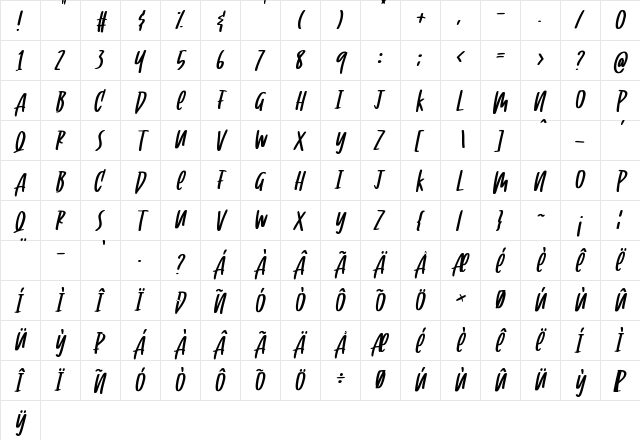
Cooless italic Regular
Design Context for Cooless italic Typeface
Cooless italic is a composed and adaptable typeface that performs quietly and consistently across a wide range of design contexts. Its italic angle brings a sense of urgency and motion to the letterforms.
Pro Tip: Use Cooless italic for emphasis, pull quotes, and subheadings where its slanted energy can add rhythm to the layout.